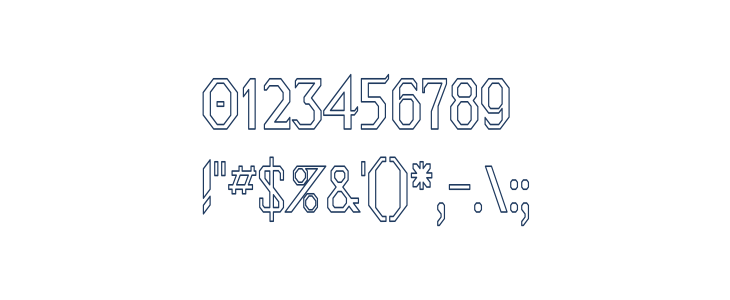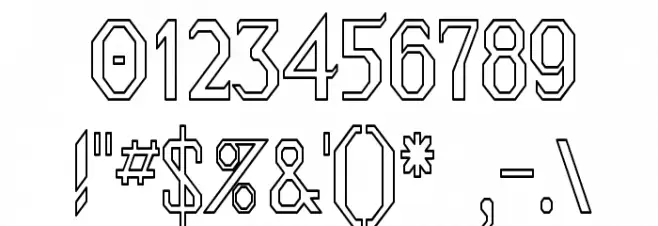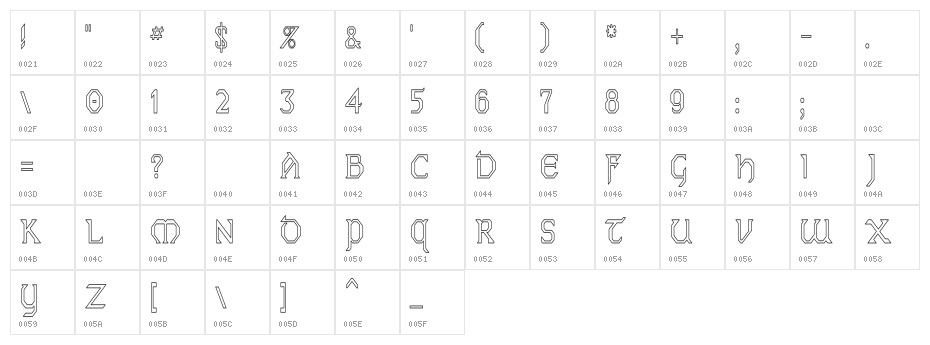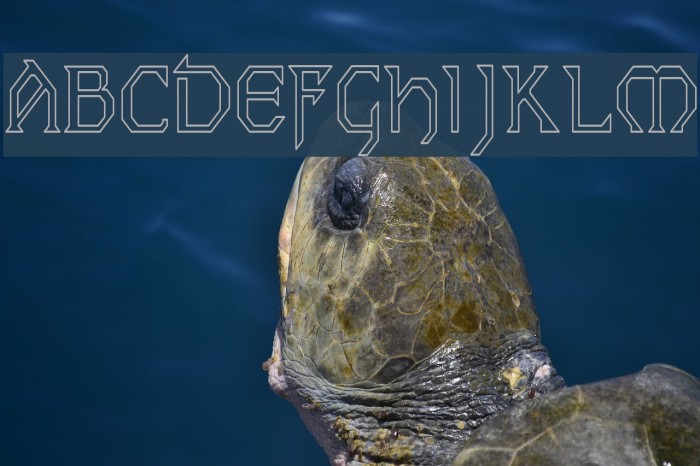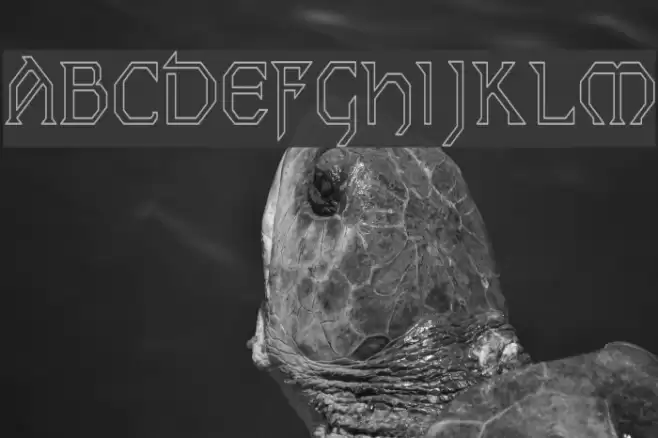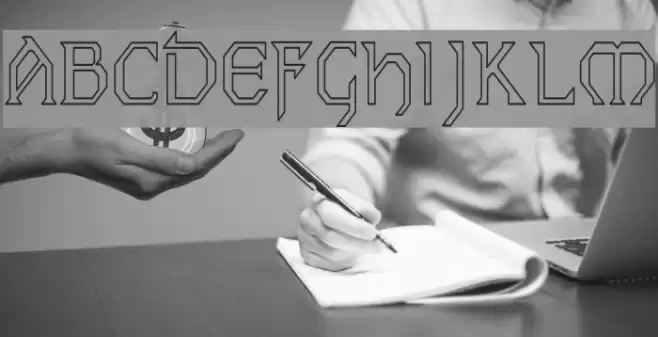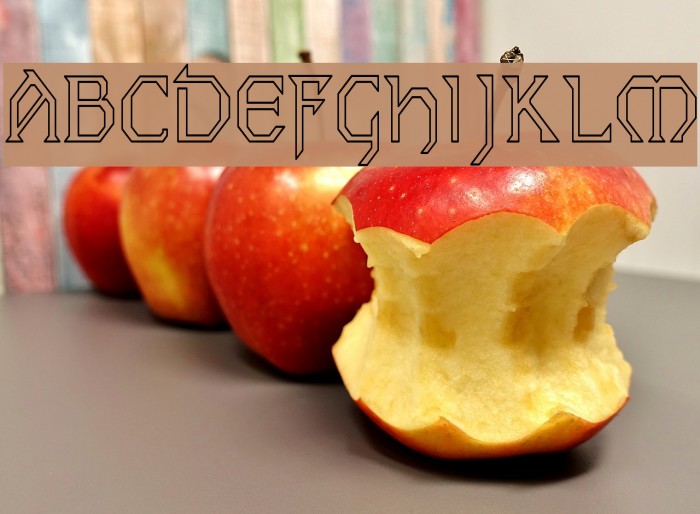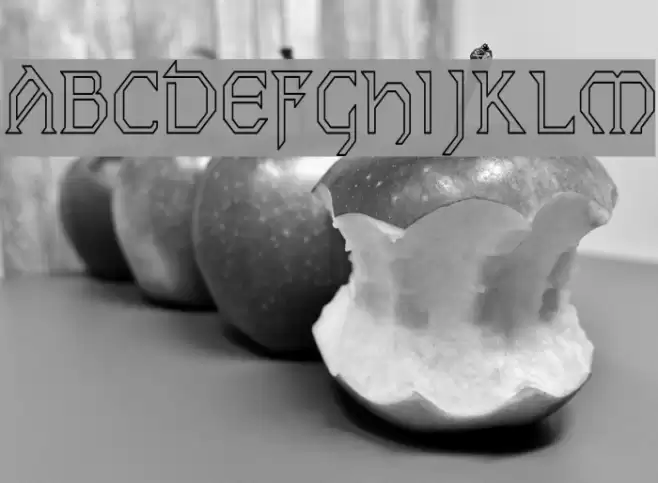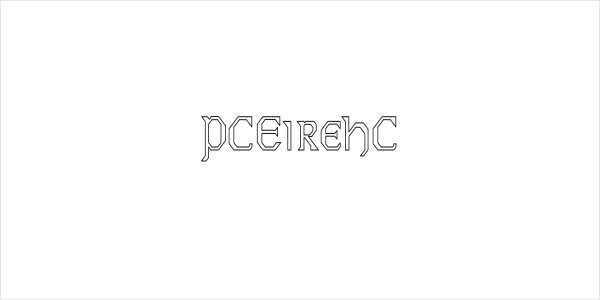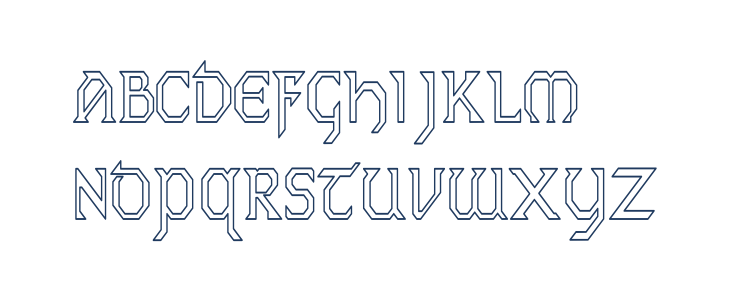
PCEireHC Font
PCEireHC Description
This font features a distinctive geometric and angular design, characterized by sharp edges and a bold presence. The uppercase and lowercase letters maintain a consistent style, with a strong emphasis on vertical and diagonal lines. The numerals and special characters are crafted to match the overall aesthetic, providing a cohesive look. The font's unique style makes it stand out, offering a modern twist on traditional typefaces. Its structured form and clear legibility make it suitable for various design applications.